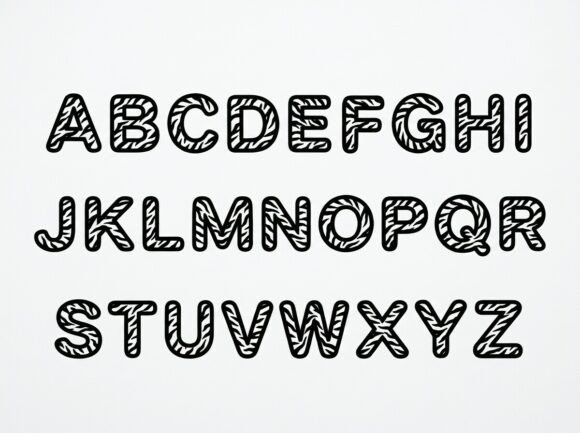
Introducing Alsha Font: A Stunning Decorative Display Font
Are you tired of using the same old fonts for your designs? Do you want to add a touch of uniqueness and creativity to your projects? Look no further than Alsha Font, a decorative display font that is sure to turn heads. With its artistic elements and strong visual personality, this font is perfect for creators who want to break away from the ordinary.
What is Alsha Font?
Alsha Font is a decorative display font designed to be the center of attention. Its unique artistic elements and strong visual personality make it perfect for bold headlines, artistic logos, and creative packaging. This font is versatile enough to be used in a variety of design projects, from branding and advertising to packaging and signage.
Key Features of Alsha Font
- Unique Artistic Elements: Alsha Font features unique artistic elements that set it apart from other fonts. Each letter is carefully crafted to be a work of art, making it perfect for high-impact headlines, logos, and decorative initials.
- Strong Visual Personality: This font has a strong visual personality that is sure to grab attention. Its bold and eye-catching design makes it perfect for creators who want to make a statement.
- Versatile: Alsha Font is versatile enough to be used in a variety of design projects, from bold headlines and artistic logos to creative packaging and signage.
- Professional and Polished Finish: Despite its bold and artistic design, Alsha Font maintains a professional and polished finish, making it perfect for use in high-end designs.
Why Choose Alsha Font?
There are many reasons why you should choose Alsha Font for your design projects. Here are a few:
- Stand Out from the Crowd: With its unique artistic elements and strong visual personality, Alsha Font is sure to help you stand out from the crowd.
- Perfect for Creative Projects: This font is perfect for creative projects, such as artistic logos, bold headlines, and creative packaging.
- Professional and Polished Finish: Alsha Font maintains a professional and polished finish, making it perfect for use in high-end designs.
- Use it for Headlines: Alsha Font is perfect for bold headlines and titles.
- Use it for Logos: This font is great for creating artistic logos and branding.
- Use it for Packaging: Alsha Font is perfect for creative packaging and labeling.